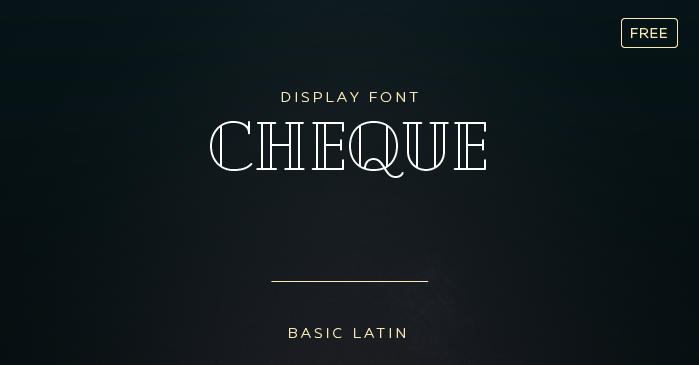
Cheque Font
Introduce Cheque font by Mirela Belova. This font is based on geometric shapes and has a very classy vintage look. Cheque looks best when used for headlines or compositions.